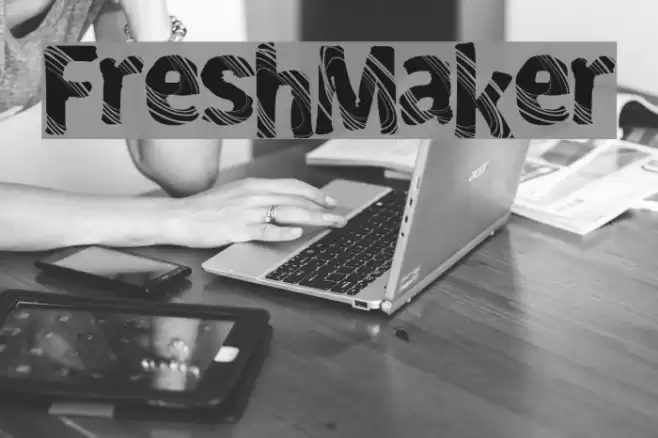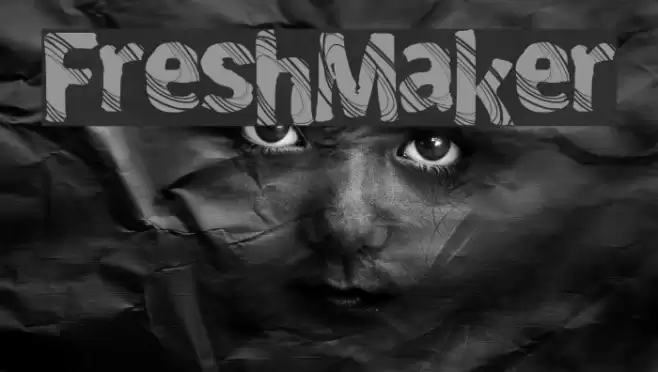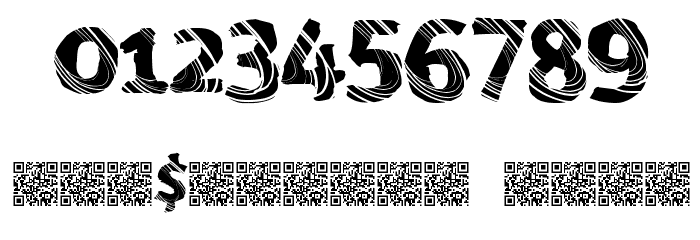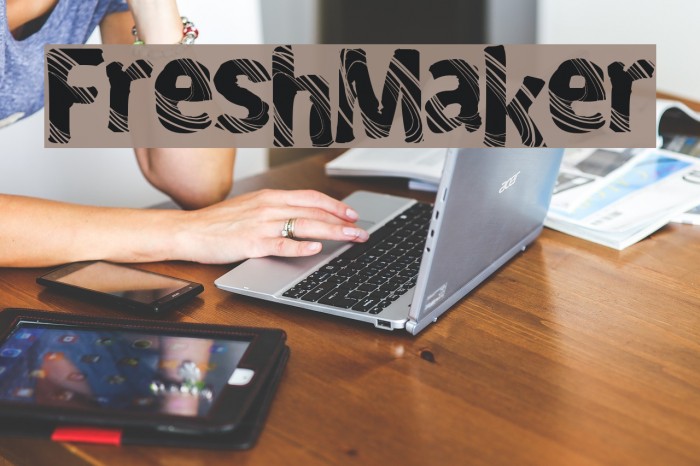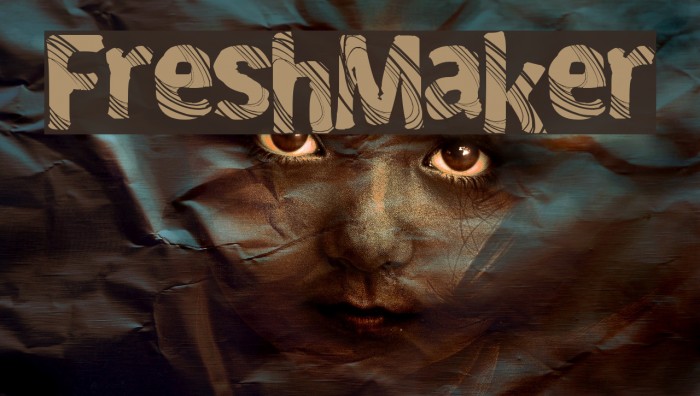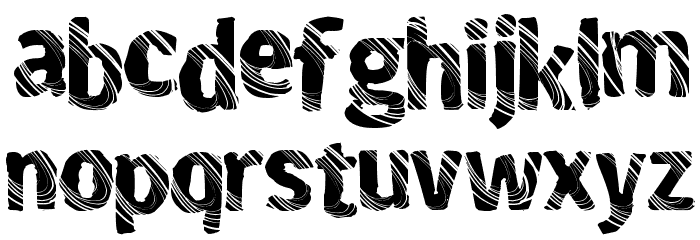
FreshMaker Font
FreshMaker Description
This font features a bold and dynamic design with a unique striped pattern running through each character. The uppercase and lowercase letters maintain a consistent style, with thick strokes and a playful, energetic feel. The numbers and special characters follow the same design, ensuring uniformity across all elements. The font's distinctive appearance makes it stand out, offering a modern and artistic vibe that is both eye-catching and memorable.
A bold, striped font with a modern and artistic flair from Uncategorized fonts.